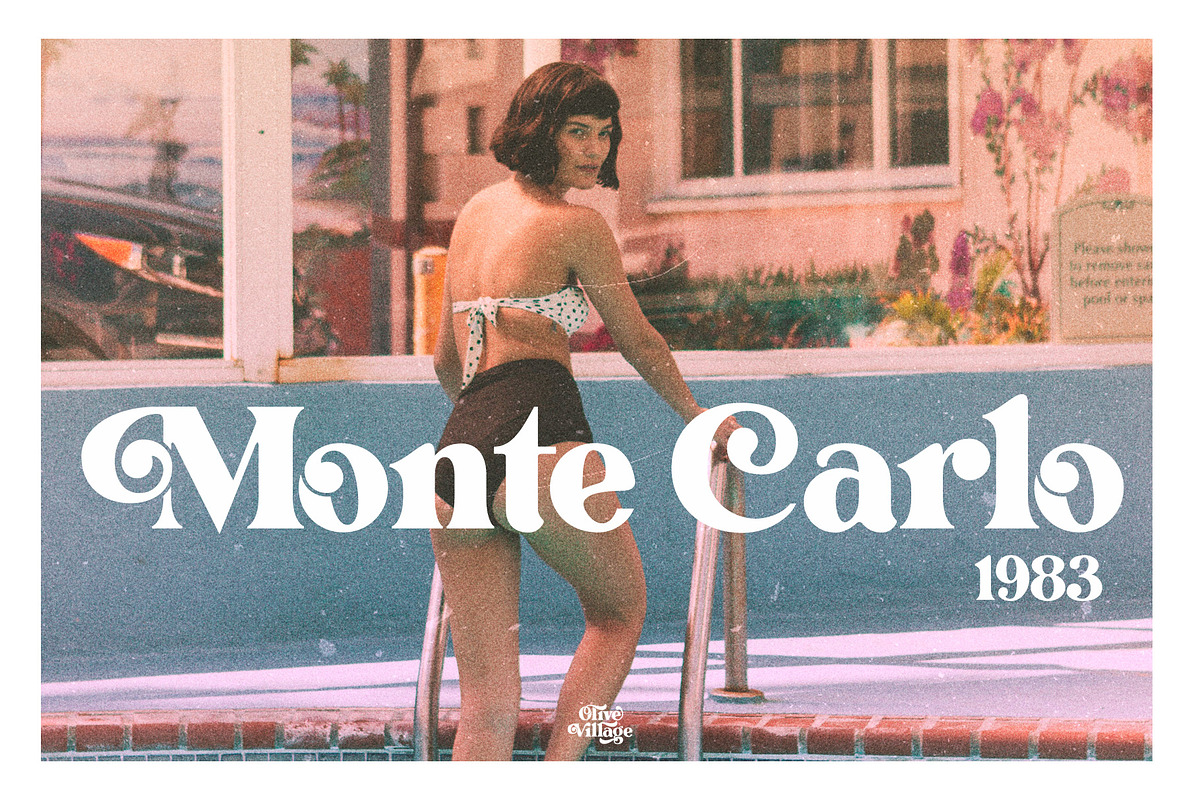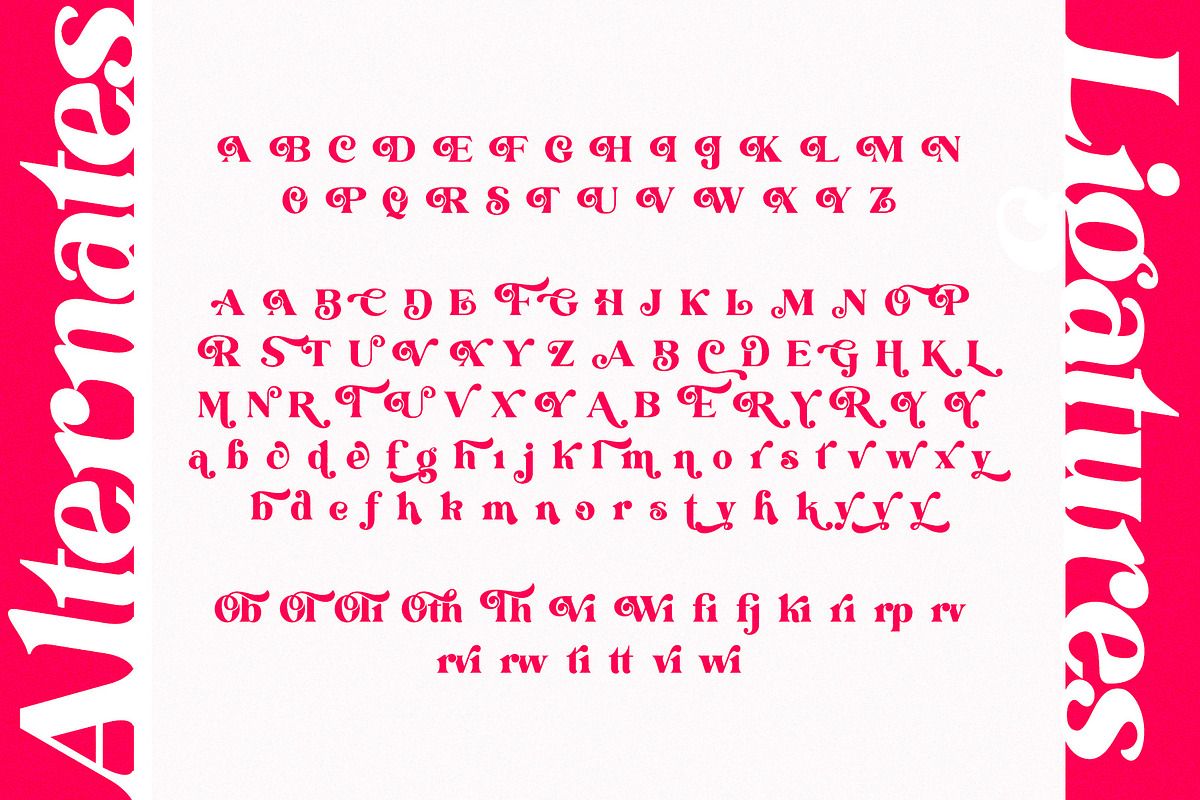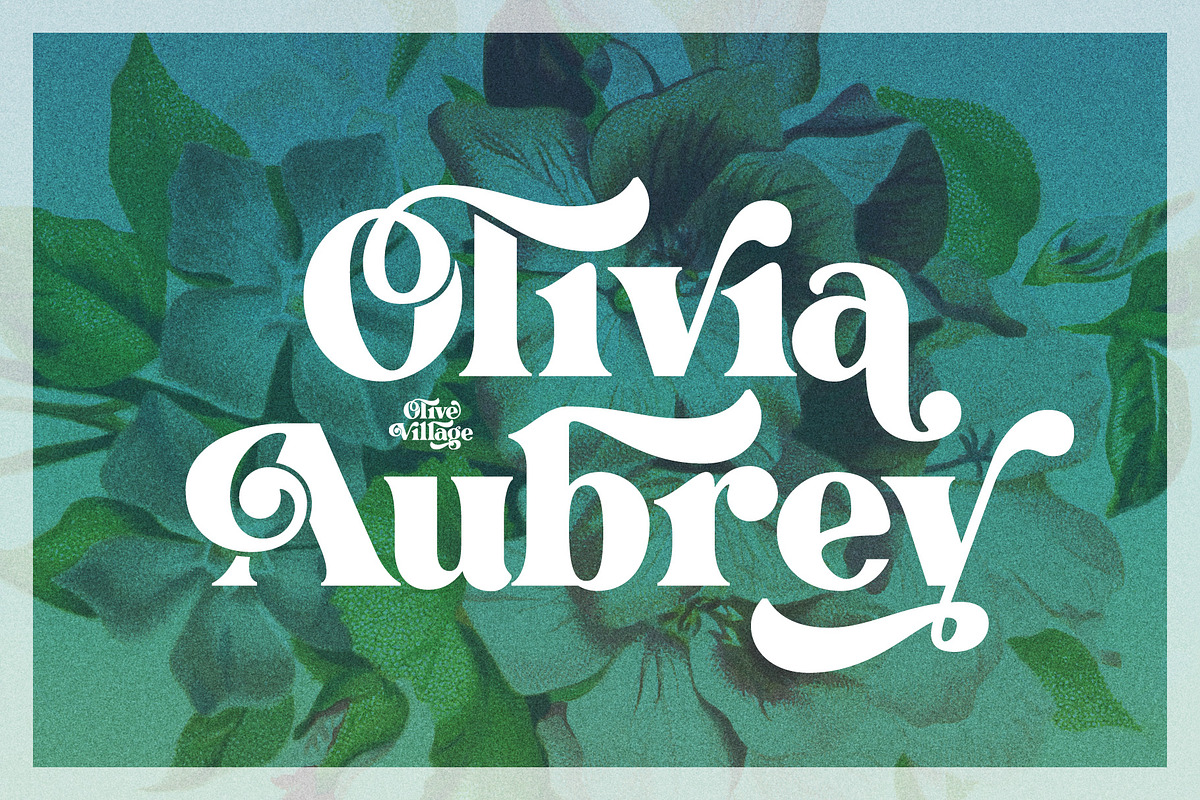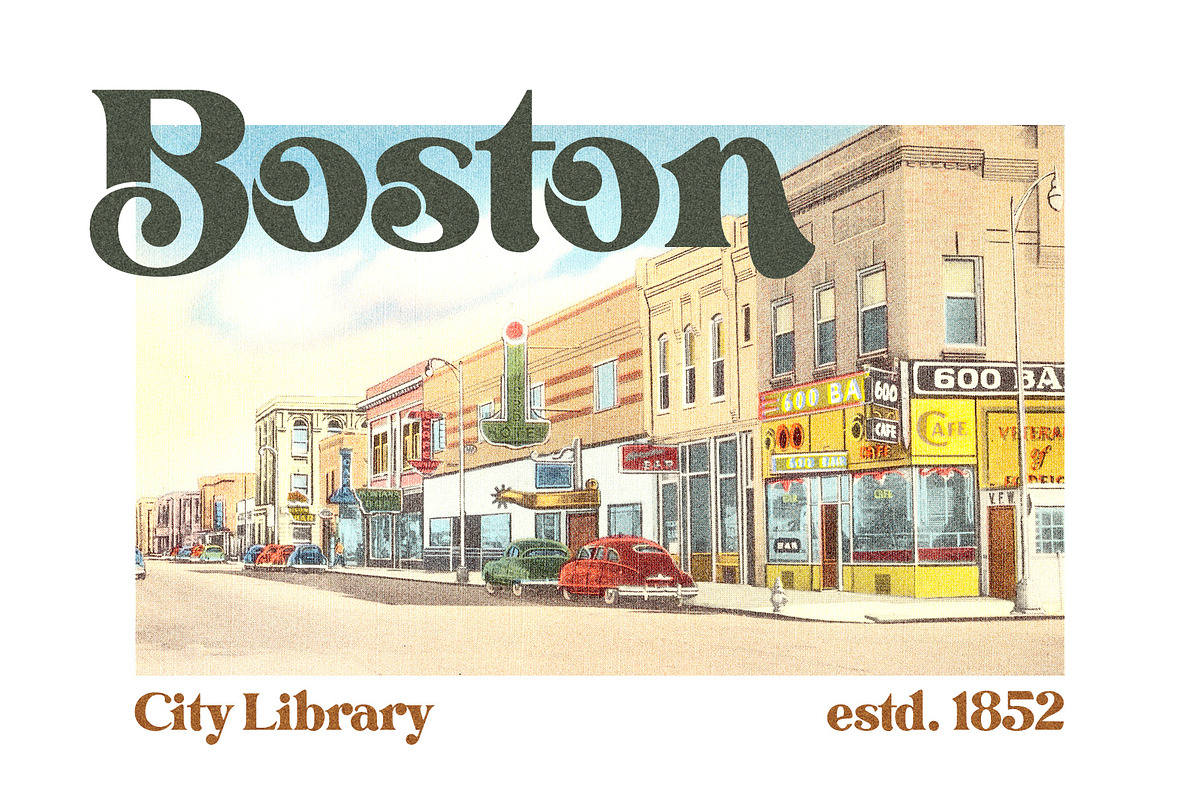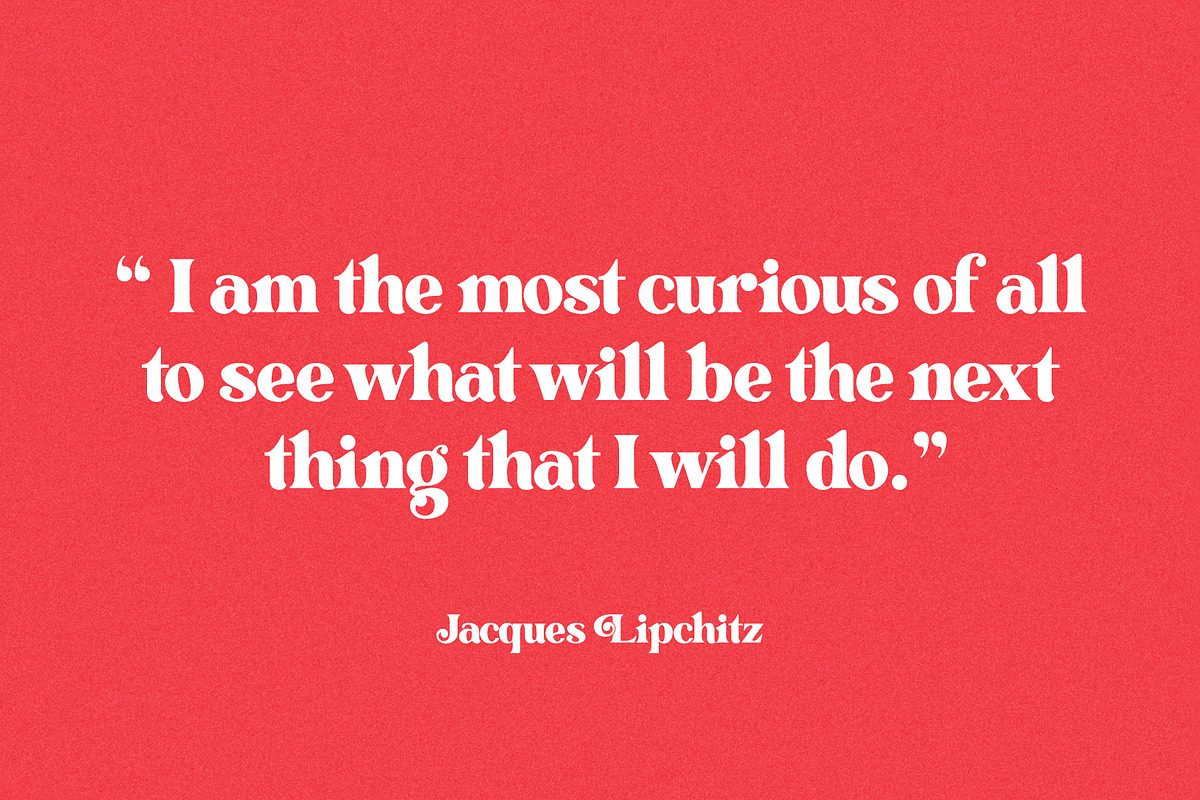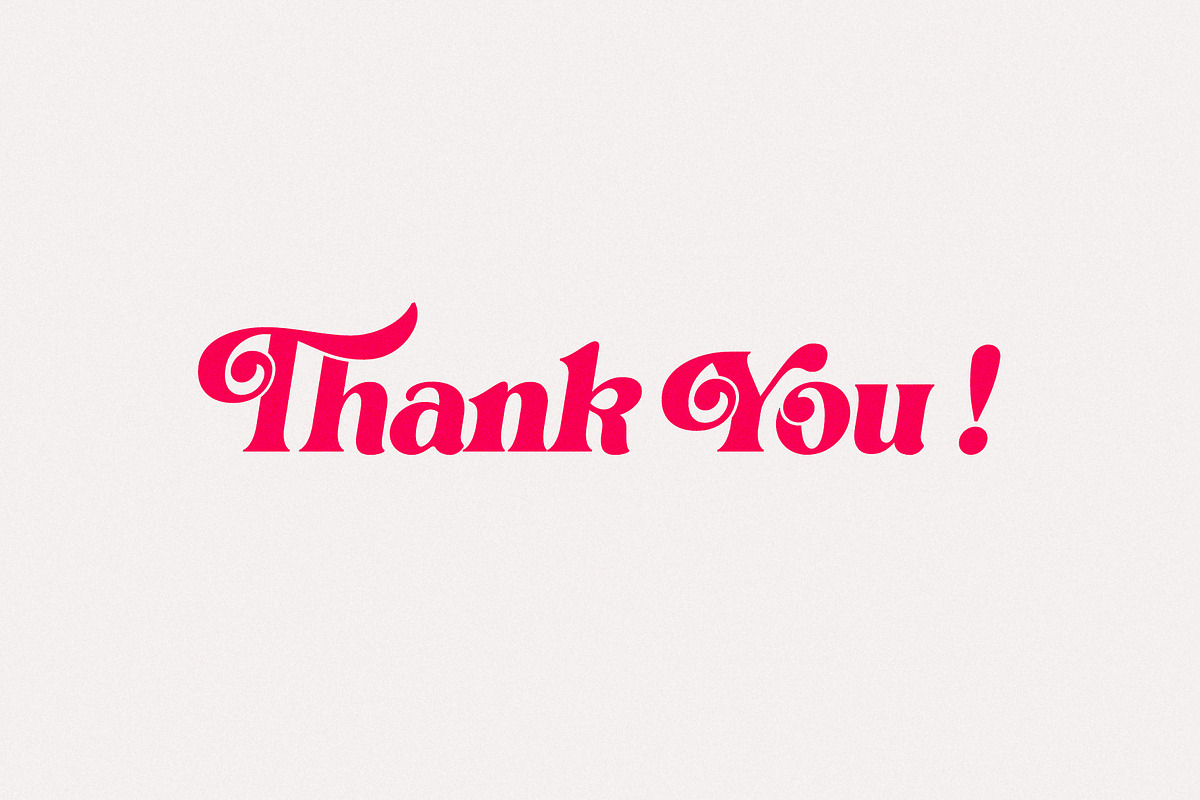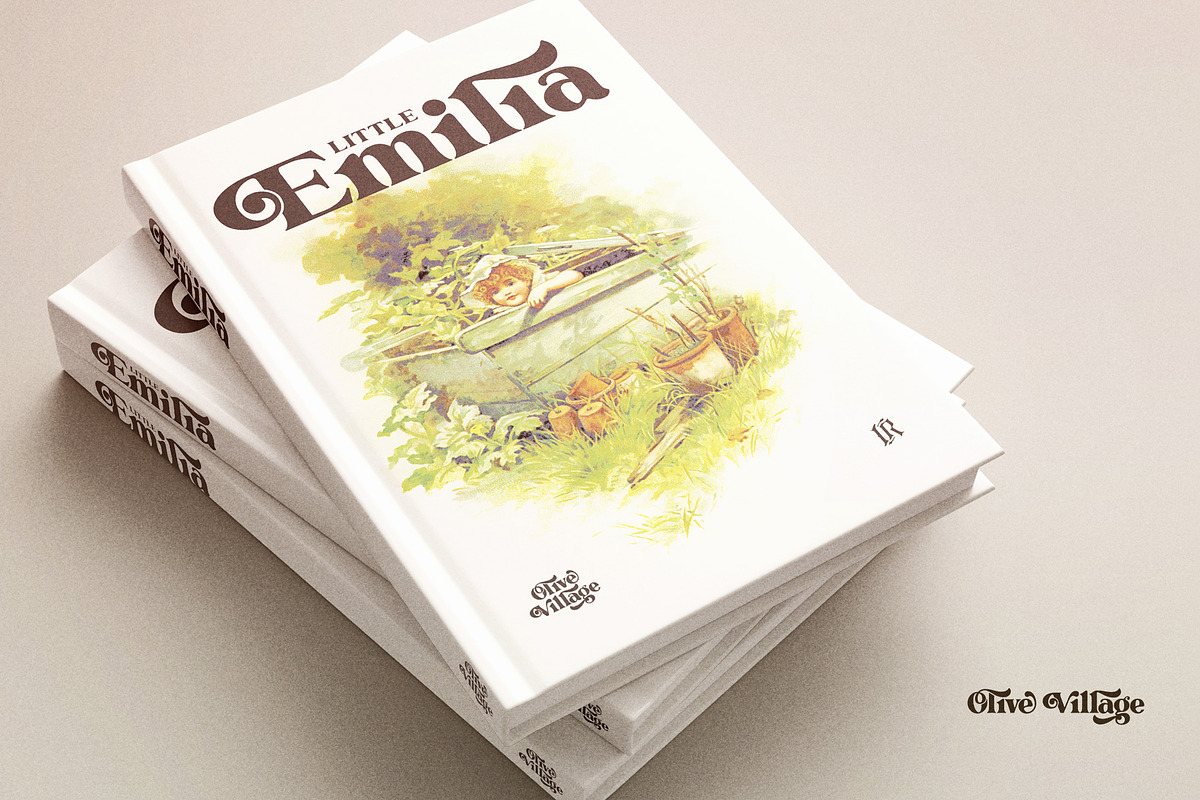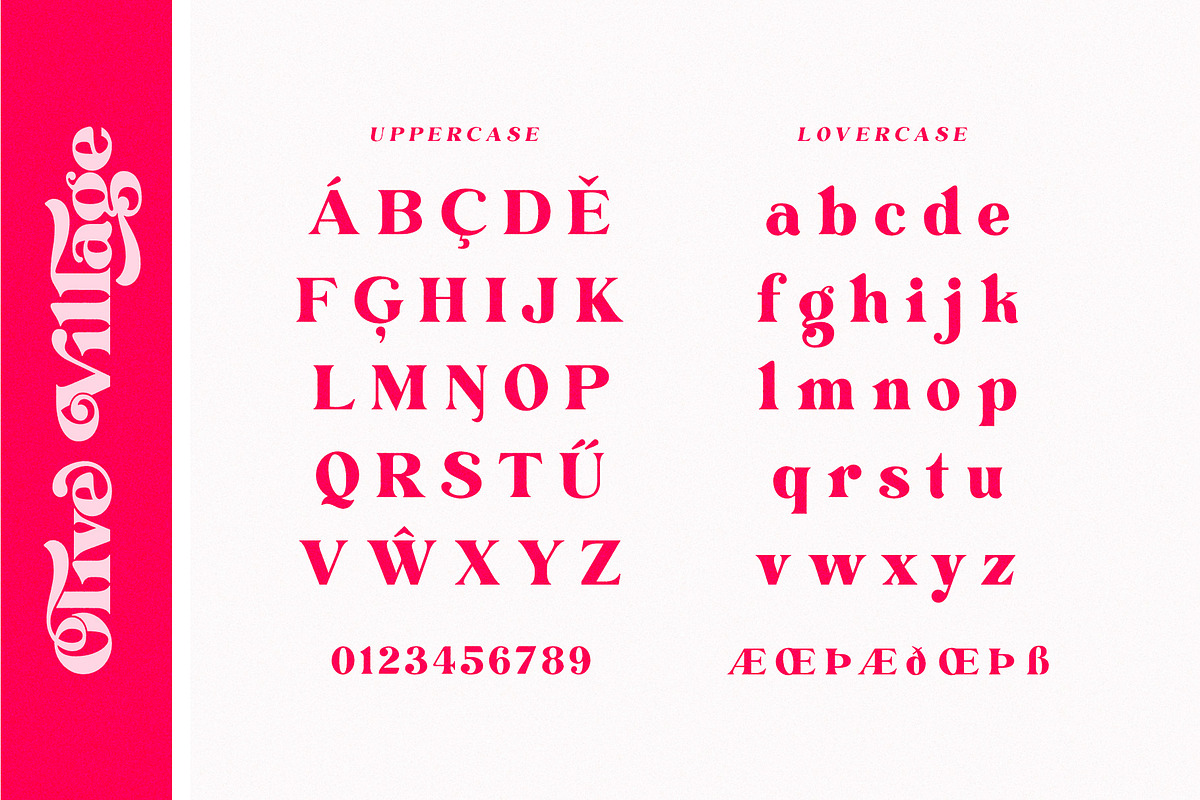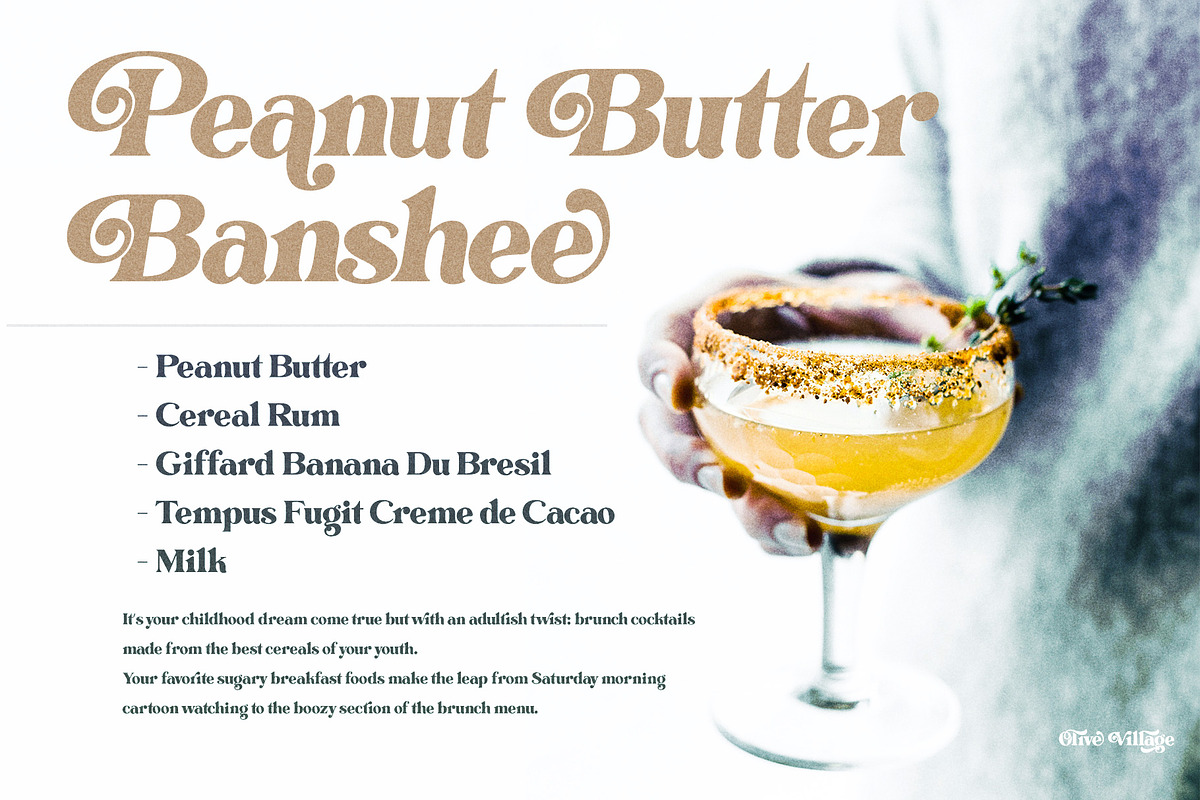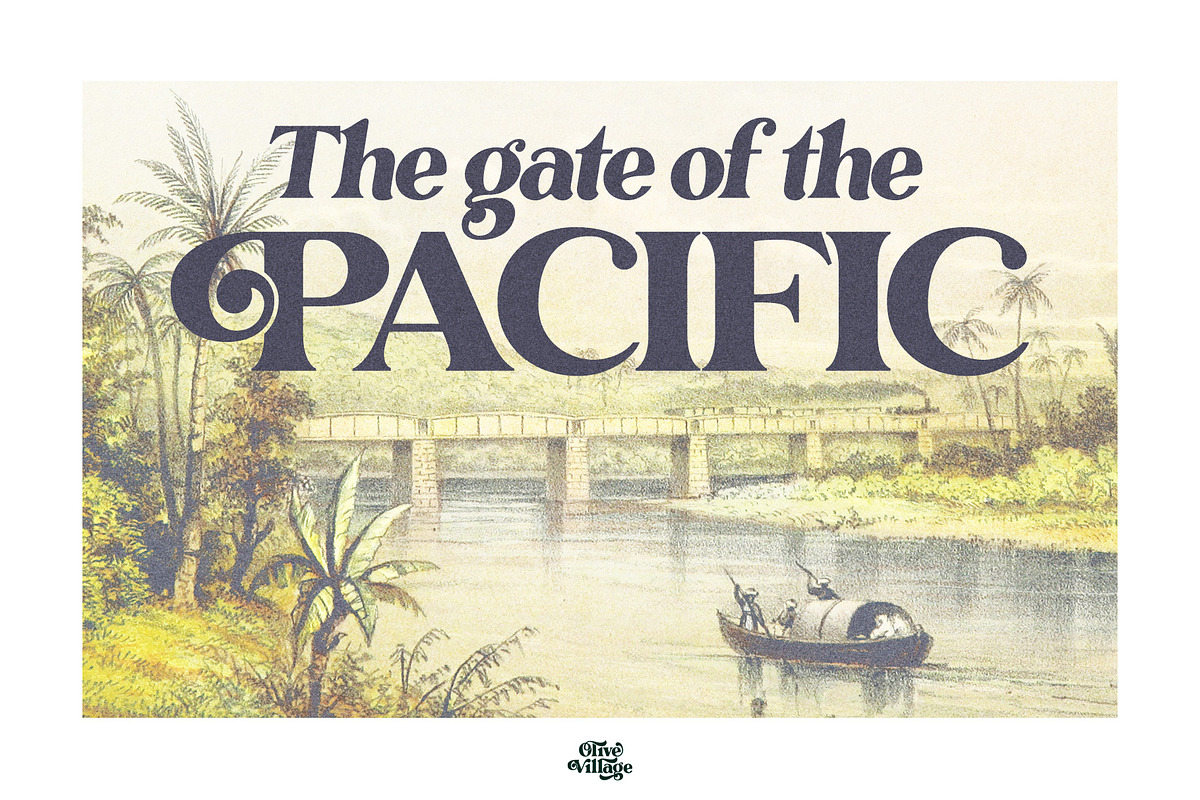
Olive Village - Vintage Font
Olive Village is a stylish vintage font inspired by 70’s groovy vibe with a touch of modernity. It looks amazing at display sizes and is easily readable in text size. Olive Village comes with access to your OpenType features, large selection of alternate glyphs and ligatures. There are two versions of this font : REGULAR and ITALIC.
Olive Village is a display font made mainly for headlines, titles, and other short texts and is well-suited for advertising, vintage mood board, branding, logotypes, packaging, titles, editorial design and modern and vintage design.